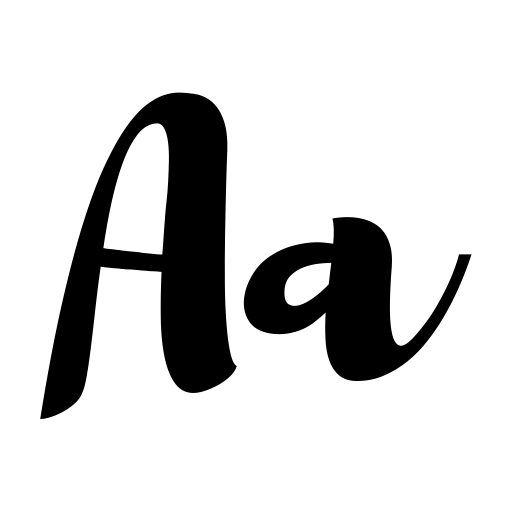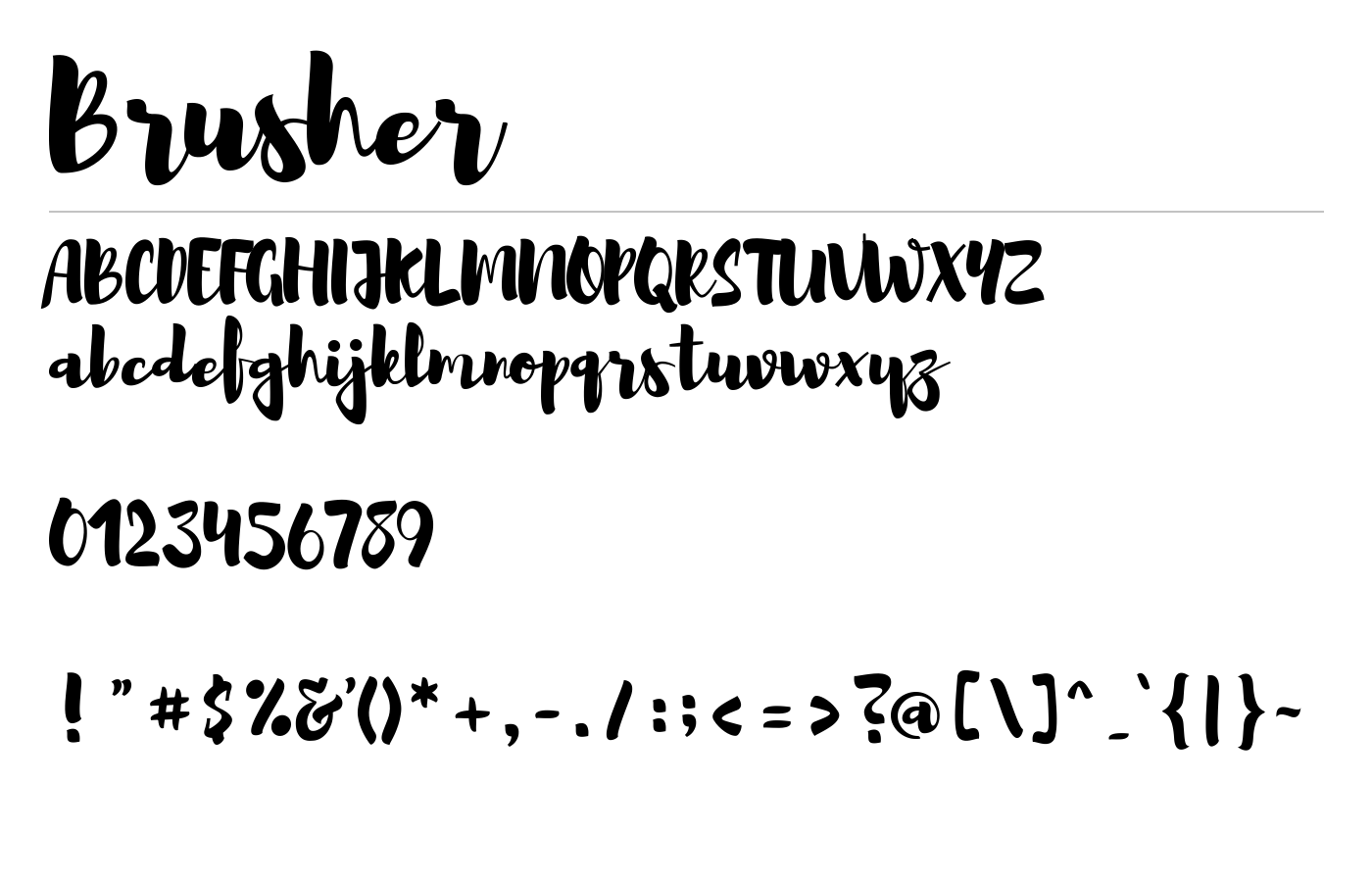
Brusher is a lively and modern script font that mimics natural brush strokes with a bold, playful feel. Its smooth, rounded shapes and varying stroke widths give a casual yet confident vibe, making it perfect for creative branding, eye-catching headlines, and informal designs that want to convey warmth and personality. This font works especially well for logos, invitations, and social media graphics where a friendly, handwritten touch is desired.
Brusher Font
About Brusher Font